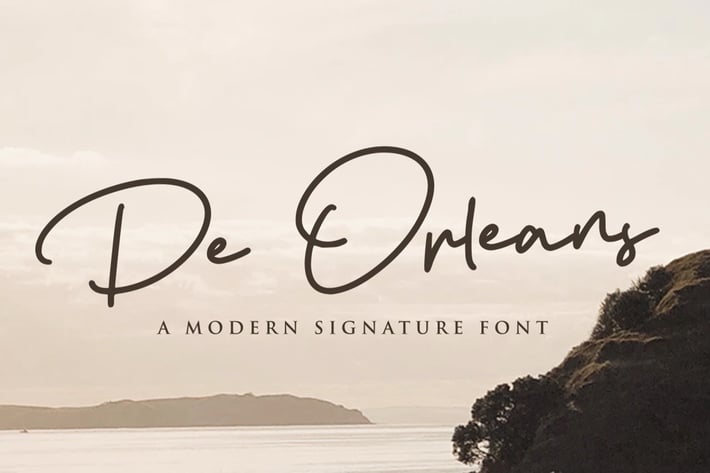
De Orleans - Modern Signature Font
De Orleans Signature Font made with simple and elegant hand writing will create stunning signature style.
De Orleans is perfect for branding projects, logo, wedding designs, social media posts, advertisements, product packaging, product designs, label, photography, watermark, invitation, stationery and any projects that need handwriting taste.
Fonts include multilingual support for; ä ö ü Ä Ö Ü ß ¿ ¡